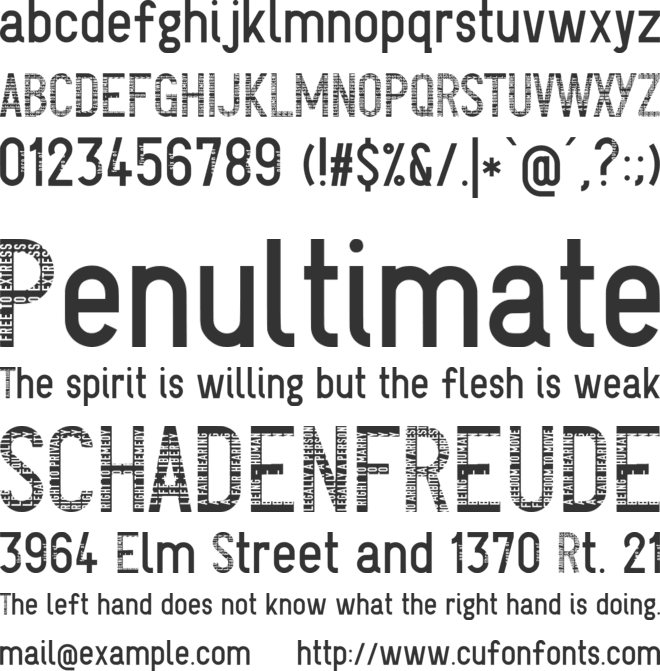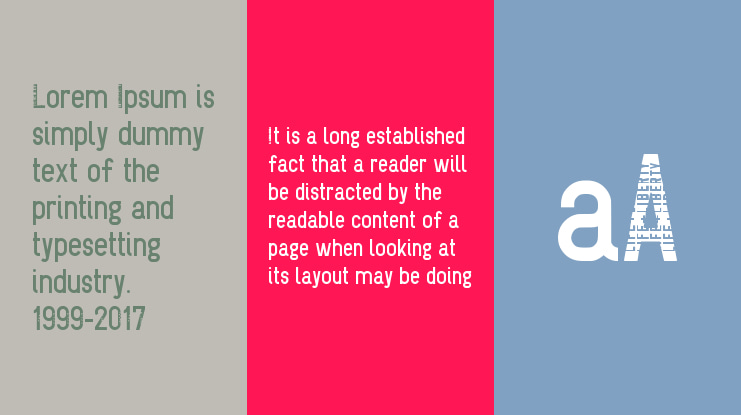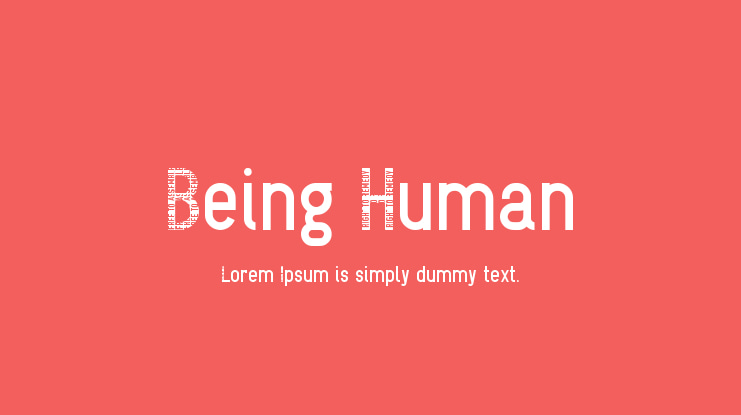
I have inserted words within the capitals of this digital font. Words which are only readable by us, humans, and not by the computers which use the font. The words relate to the human rights and freedoms as they are formulated in the Universal Declaration of Human Rights 1948. See http://www.un.org/en/universal-declaration-human-rights/index.html for more information.
Human rights are inalienable from every human being. Through this font the Universal Declaration of Human Rights become symbiotically merged within every text. If you use this font your text will include a mini version of the human rights, although the reader might not be aware of it if you use it in normal size (for example 12 points). Only if you use it in large sizes (for example 48 points) the words become readable.
I felt compelled to create this font because the precarious state of the human rights in the world. My government and your government are very unlikely to improve these rights as they were declared almost 70 years ago. It is down to us to make this happen: use, disperse and promote your human rights with every sentence you write. vvvr 2016
This font is a modification and amulgation of the fonts OSP-Logisoso and OSP-DIN. The Font Software Sym-Being-Human is an open font and is released with the same licenses as the fonts OSP-Logisoso and OSP-DIN. See below for the individual licenses that where attached to these fonts.